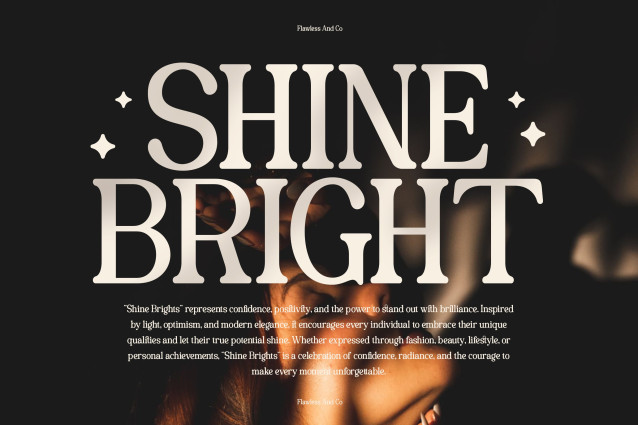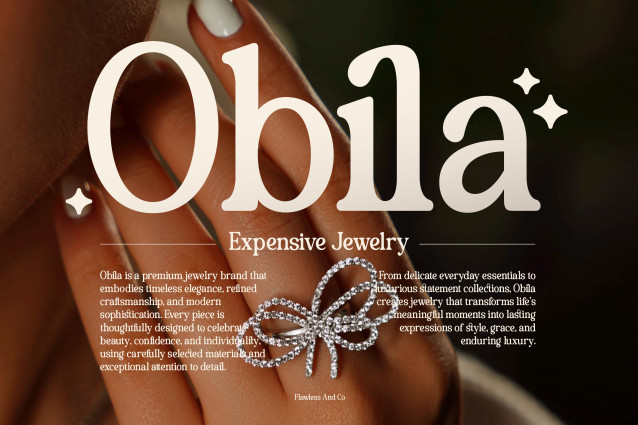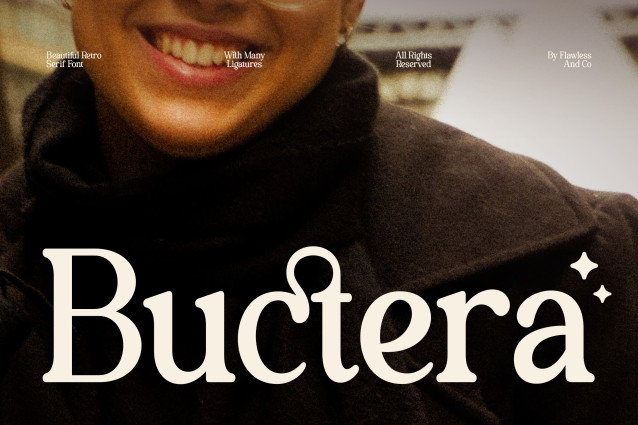
Buctera – Elegant Retro Serif Font
Buctera – Beautiful Elegant Retro Serif Font
Buctera is a beautiful elegant retro serif font that celebrates the enduring beauty of vintage typography through graceful craftsmanship and modern refinement. With its distinctive high-contrast serifs, soft flowing curves, and carefully sculpted letterforms, Buctera creates a harmonious balance between nostalgic charm and contemporary sophistication. Every character is thoughtfully designed to bring warmth, elegance, and personality into every word.